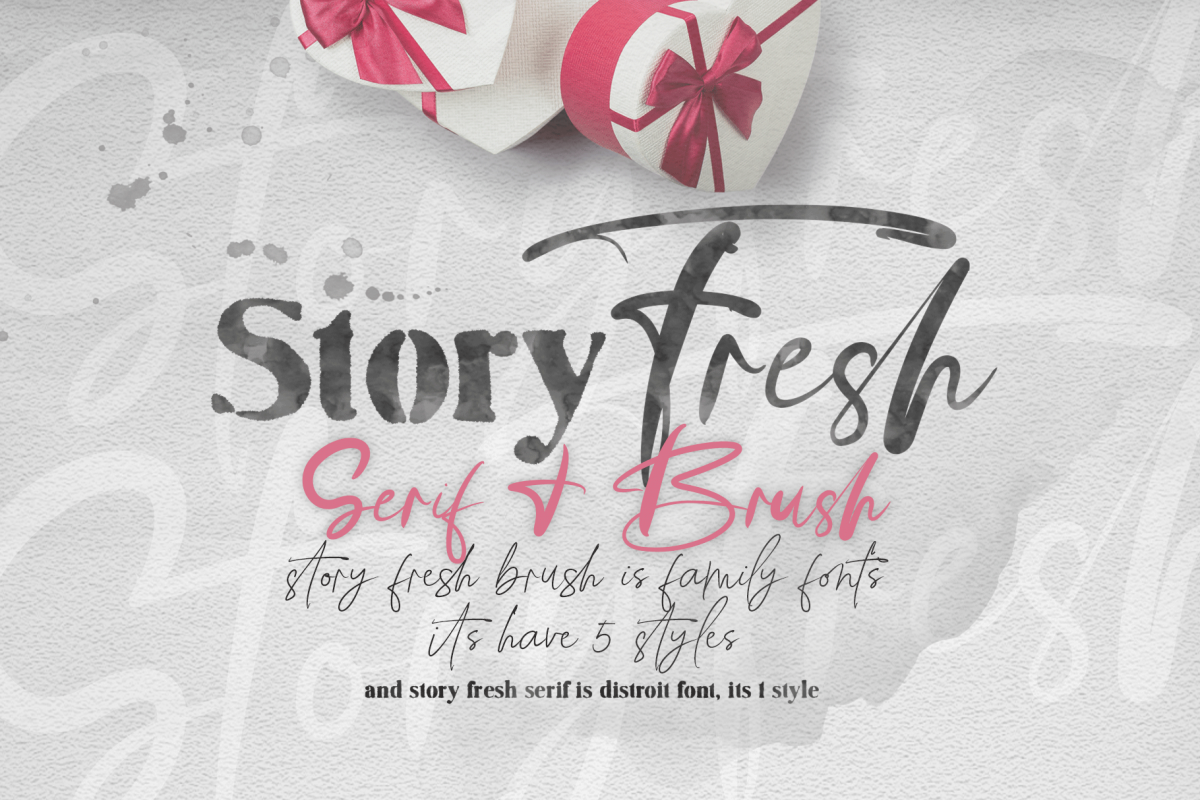
Story Fresh//Family
Story Fresh Brushlight
Story Fresh Brush
Story Fresh BrushMedium
Story Fresh BrushNormal
Story Fresh BrushBold
Story Fresh Serif
Story Fresh is a family script font, with 5 styles: brush, bold, medium, normal and light. also includes 1 serif font with a rough style.Story Fresh a work that is purely handmade, has its own characteristics with the style of monoline. this is perfect for invitations, signatures, blogs, social media, business cards, product brands.